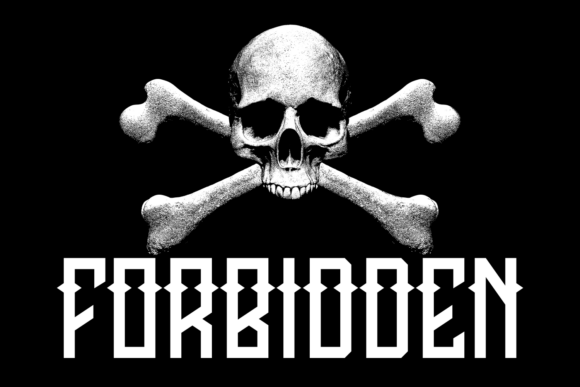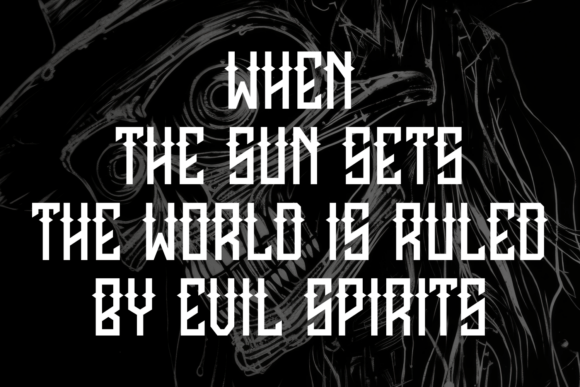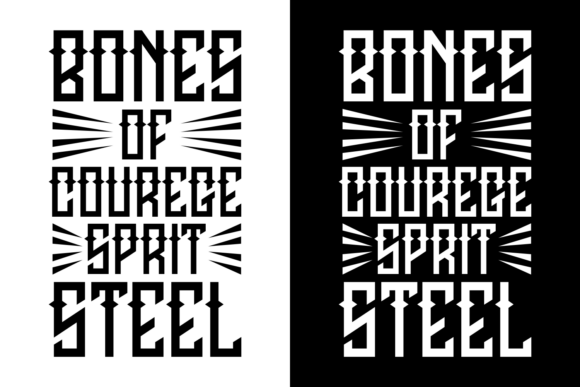
Introduction to Ingram Font
Ingram is a bold blackletter font that blends classic medieval style with modern flair.
Its intricate strokes and sharp angles evoke a sense of elegance and strength, making it perfect for designs that demand attention, such as logos, posters, and branding .
Key Features of Ingram Font
Why Choose Ingram Font?